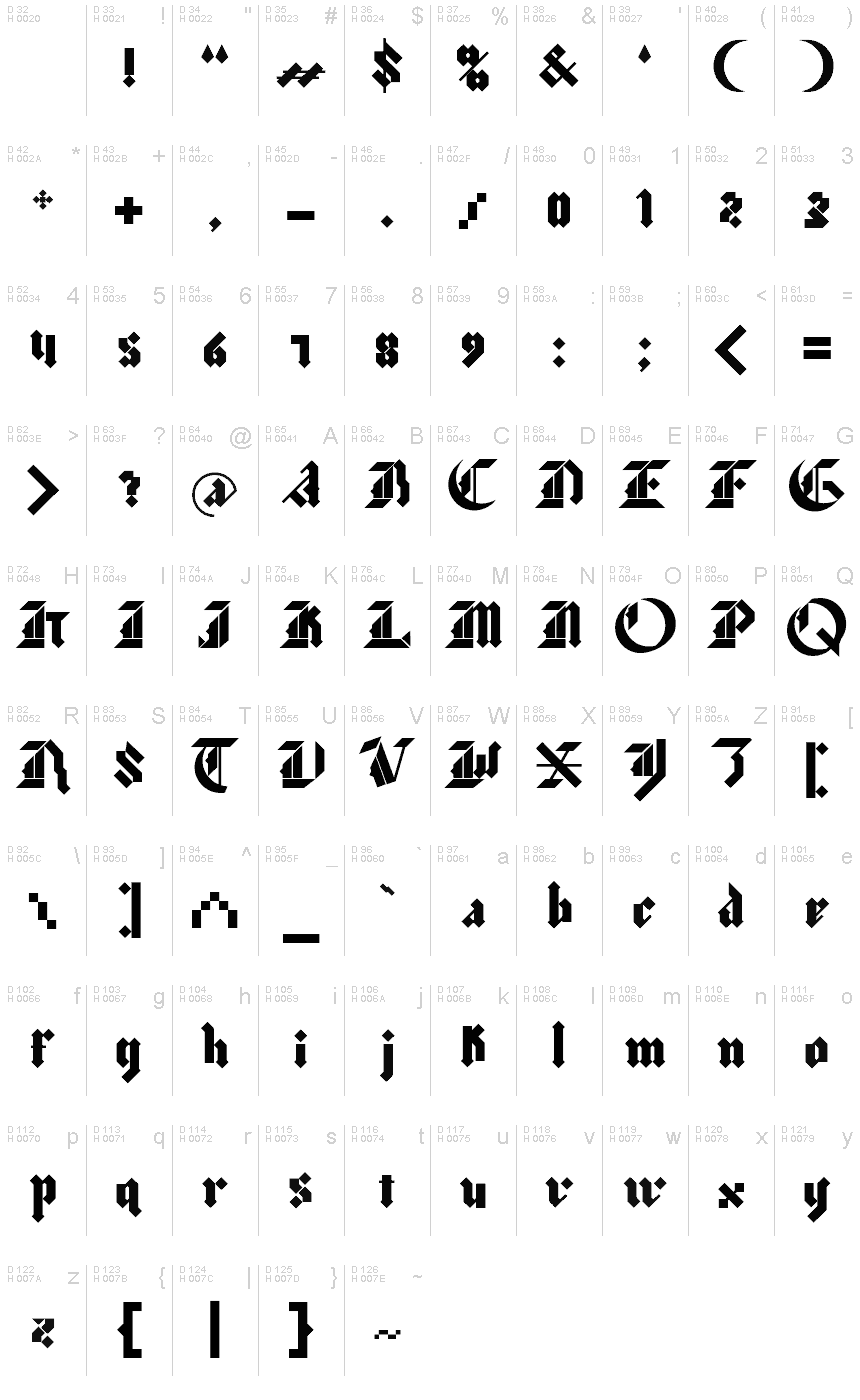
morgan
Morgan is a bold, modern gothic font designed by Sigit Nur Wicaksono. Its striking, angular letterforms command attention, effortlessly blending classic gothic influences with a fresh, contemporary aesthetic. The font's substantial weight and sharp edges lend it an air of authority and gravitas, making it well-suited for a range of applications, from editorial headlines and branding to signage and packaging. Its bold, distinctive personality ensures it stands out, making it a versatile choice for designers seeking a font that makes a powerful statement.
The font's unique character and design would shine in a variety of contexts, from edgy, industrial-inspired designs to sleek, modern identities. Its bold presence and clean, geometric forms make it an excellent option for creating impactful typographic compositions that demand attention and leave a lasting impression.